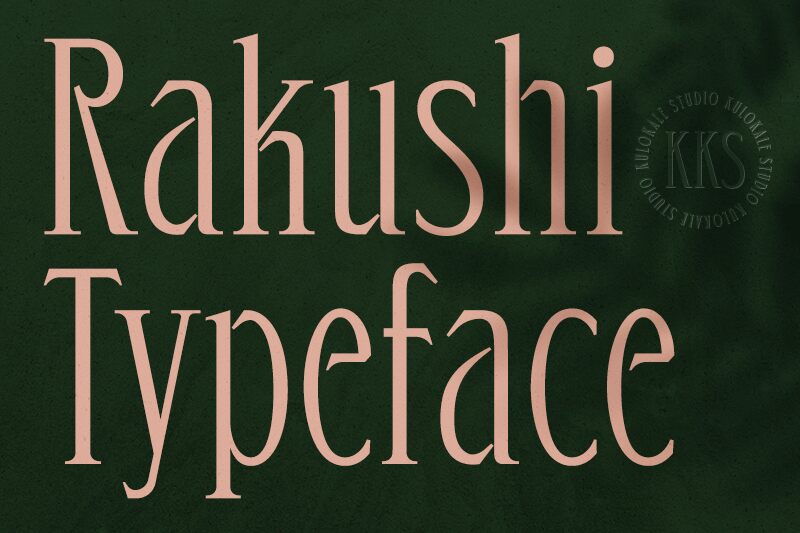
Rakushi, an exquisite serif font designed by Kulokale Studio, effortlessly blends elegance and modernity. With its semi-light weight and extra-condensed width, Rakushi lends sophistication to any project it graces. Perfect for editorial designs and branding materials, this font adds a touch of refinement to magazines and luxury fashion catalogs. Its clean lines make it ideal for minimalist websites, while its classic serifs create a timeless appeal suitable for vintage-inspired packaging. Rakushi's versatility shines through in invitations and stationery, infusing an air of grace into wedding suites and formal correspondence. Elevate your creations with Rakushi's distinctive charm.
Kulokale Studio
Rakushi
M Arif Dwi Prasetyo & Eko Nurcahyo